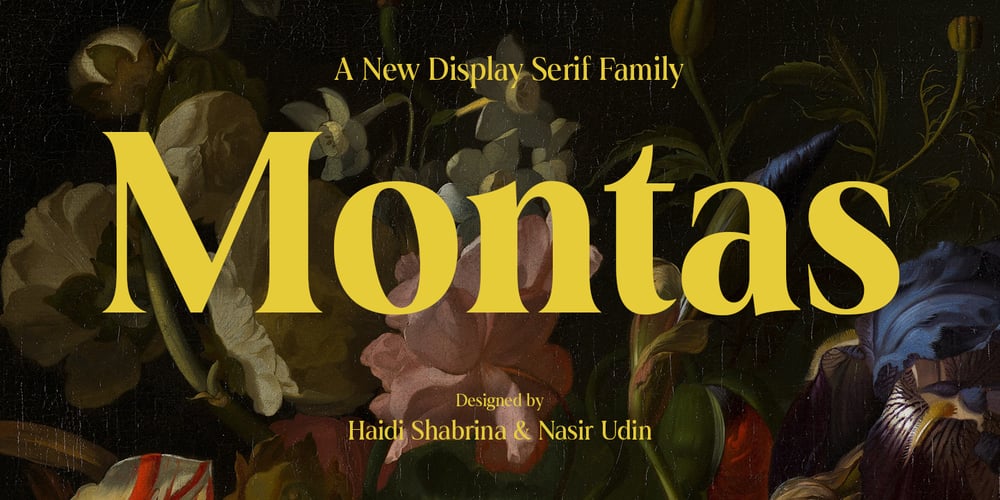
Montas Font Family was designed by Nasir Udin, Haidi Shabrina and published by Nasir Udin. Montas contains 7 styles and family package options. Montas is an elegant display serif with high contrast. Designed to be fit on a vintage-themed design project or the modern one. Its bolder weights are suitable for a striking headline, while the lighter weights are suitable for a short paragraph as well.